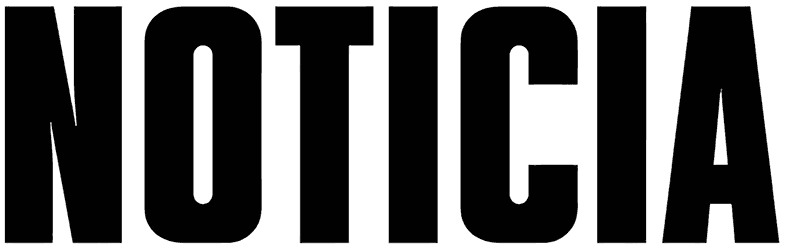
Noticia Font
Noticia with bold letters and an eye-catching effect makes the audience not miss your message. This sans serif font is offered for a brilliant finish and can be one of your strengths in any project.
The standard appearance of this T-shirt font gives you a lot of freedom to implement different projects and ideas, and can bring you the best results in any format. So use the power of Noticia in print projects, website titles, technology posters, and computer games.